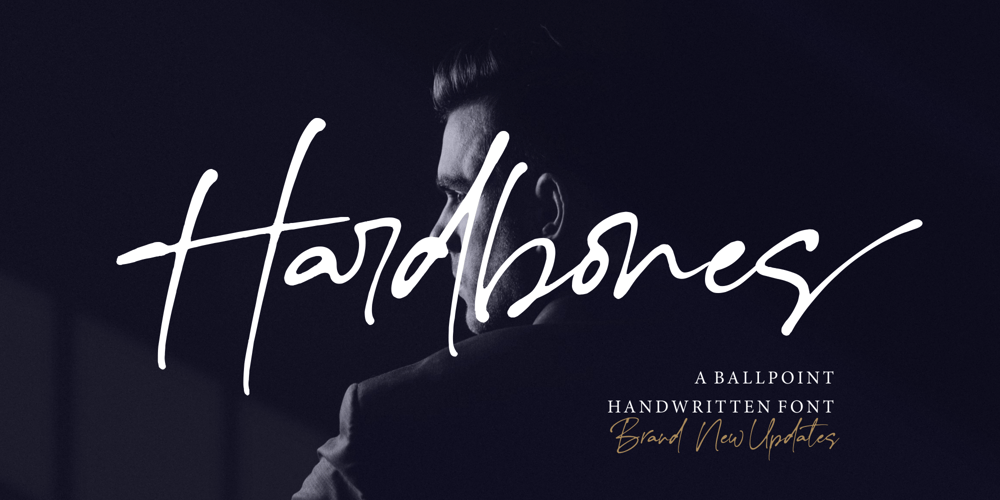
Hardbones Font Family was designed by Bagus Arya Kirana and published by Krntype Studio. Hardbones contains 1 styles and family package options. Hardbones is a stunning ballpoint signature font. font with unique natural flow and feminine style, made using a unique gel ballpoint ink.Each letter is deliberately imperfect to make it look more natural and charming.Hardbones comes with multilingual support, ligature, and ending swash from a-z.